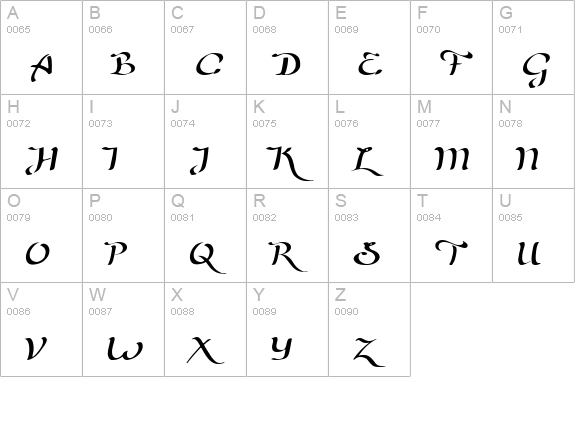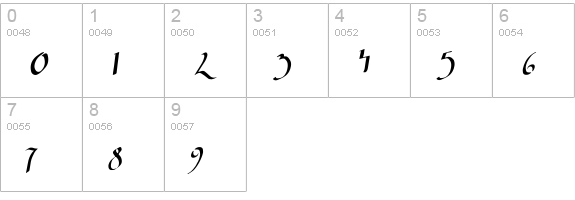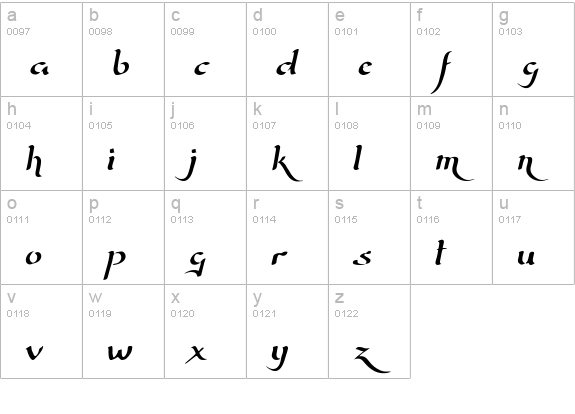
Wizard Of The Moon Font Details
Introducing the mesmerizing and enchanting Wizard Of The Moon font. This one-of-a-kind typeface takes inspiration from the mystical realms of magic and sorcery, transporting you to a world where spells are cast and secrets are unveiled. With its intricate and elegant design, Wizard Of The Moon captures the essence of a mysterious lunar night, where wizards harness the power of the moon to perform their extraordinary feats. Every letter in this font is carefully crafted, creating a harmonious balance between the celestial and the arcane. The curvaceous and flowing lines evoke a sense of otherworldly beauty, while the sharp edges hint at the hidden depths of the arcane arts. Each character seems to possess a magical aura, as if imbued with the very essence of moonlight itself. Wizard Of The Moon is not only captivating but also versatile, making it perfect for a wide range of design projects. Whether you're creating captivating book covers, spellbinding posters, or mystical logos, this font will elevate your designs to new levels of enchantment. And the best part? Wizard Of The Moon is absolutely free! That's right, this captivating font is freely available to download at FontsMarket.com. We believe that everyone should have access to the magic of design, and that's why we're offering this extraordinary font at no cost. So go ahead, embrace the mystical allure of Wizard Of The Moon and let your creativity soar to new heights. Download it now and unlock the power of the moon!